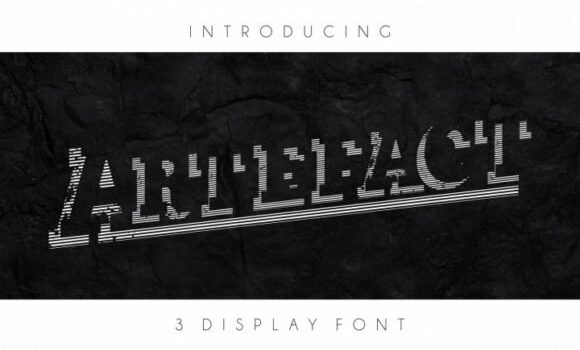
artefact
Artefact Font – Free Download Introduction to Artefact Font The Artefact is a stylish font which comes in three styles; regular, bold, and italic. 📌 Product Name Artefact Font 👤 Author bywahtung 📂 Category Explore It was inspired by striped